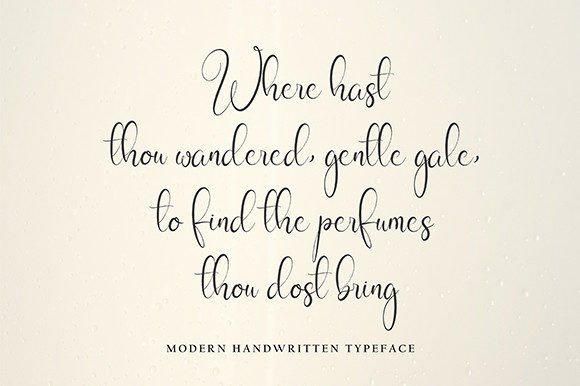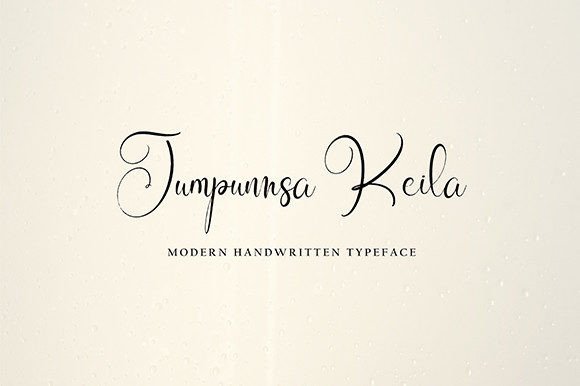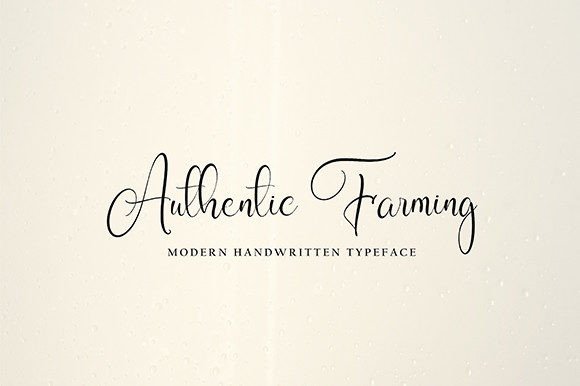
Introduction to Baritto Jhead Font
Baritto Jhead is a flowing handwritten font, described by an elegant touch, perfect for your favorite projects.
Why Choose Baritto Jhead Font?
Baritto Jhead Font offers exceptional quality and versatility, making it a valuable addition to your design toolkit. Whether you’re creating for personal projects or commercial use, Baritto Jhead Font delivers professional results.